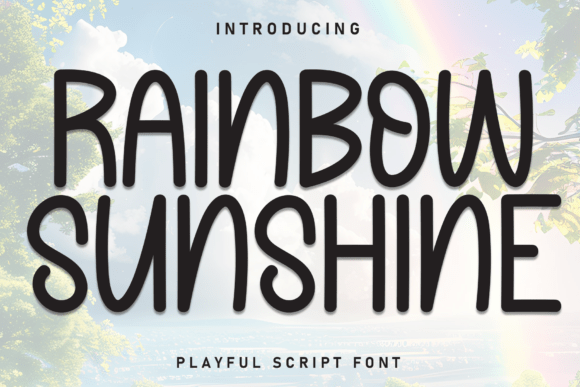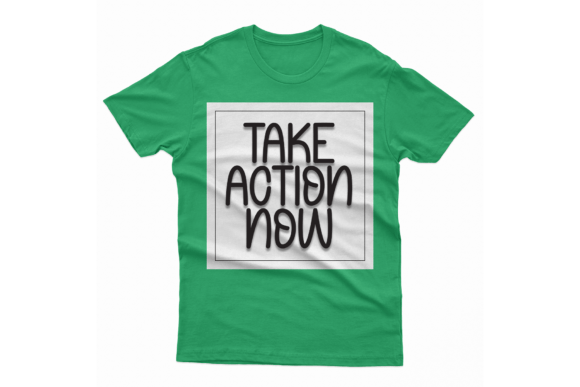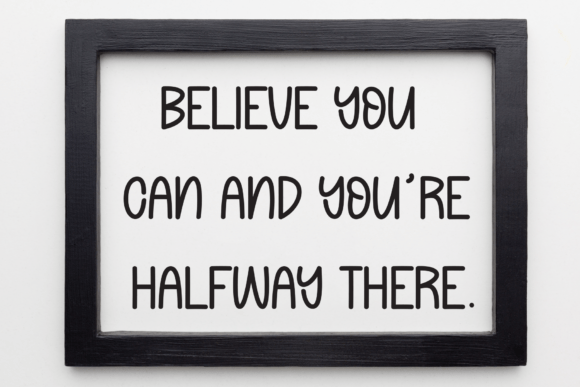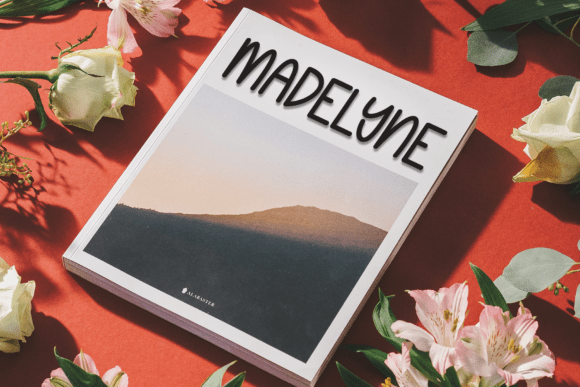
Rainbow Sunshine Font: A Playful Display Font for Social Media Design
About the Rainbow Sunshine Font
We are excited to introduce Rainbow Sunshine Font, a must-have typeface for any serious designer. Rainbow Sunshine is a casual and neat display font that radiates a fresh, friendly vibe. With clean lines and a relaxed structure, it’s perfect for packaging, posters, and social media graphics. The approachable design adds charm and clarity to projects while maintaining a polished appearance.
Rainbow Sunshine excels in headlines, short slogans, and branding elements where its friendly personality shines. It’s ideal for projects targeting a youthful or family-oriented audience, such as children’s products, food packaging, or event posters. Avoid using it for lengthy body text or UI elements; its casual nature can hinder readability in continuous paragraphs.
Pairing Rainbow Sunshine with a clean sans-serif like Open Sans for body copy creates a balanced contrast. For a more playful feel, consider a rounded geometric sans-serif such as Poppins. A simple serif like Lora could also work well, adding a touch of sophistication to offset the font’s casual energy.
The font’s overall personality is cheerful and approachable, making it a strong choice for brands that want to convey warmth and approachability. Its neat structure maintains professionalism while its friendly curves project a positive, energetic mood.
Rainbow Sunshine Font Usage Examples
Rainbow Sunshine Font Example